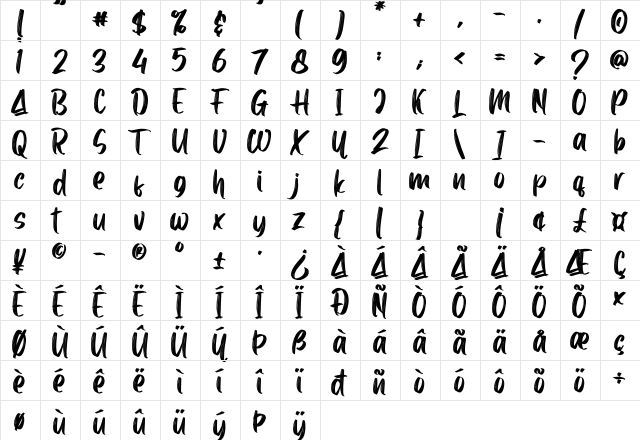
Samuell Textured - DEMO Regular
Design Context for Samuell Textured - DEMO Typeface
Samuell Textured - DEMO embraces imperfection — its rough, textured character adds raw authenticity to designs that want to feel lived-in and unconventional.
Suited to punk-influenced zines, underground music branding, streetwear, and raw, anti-corporate design.